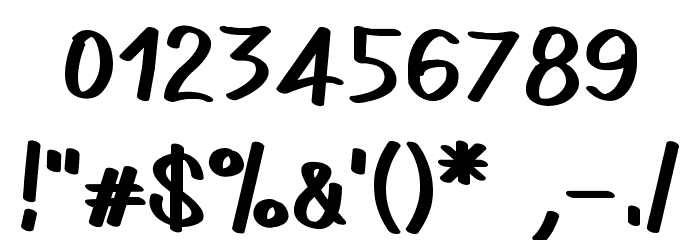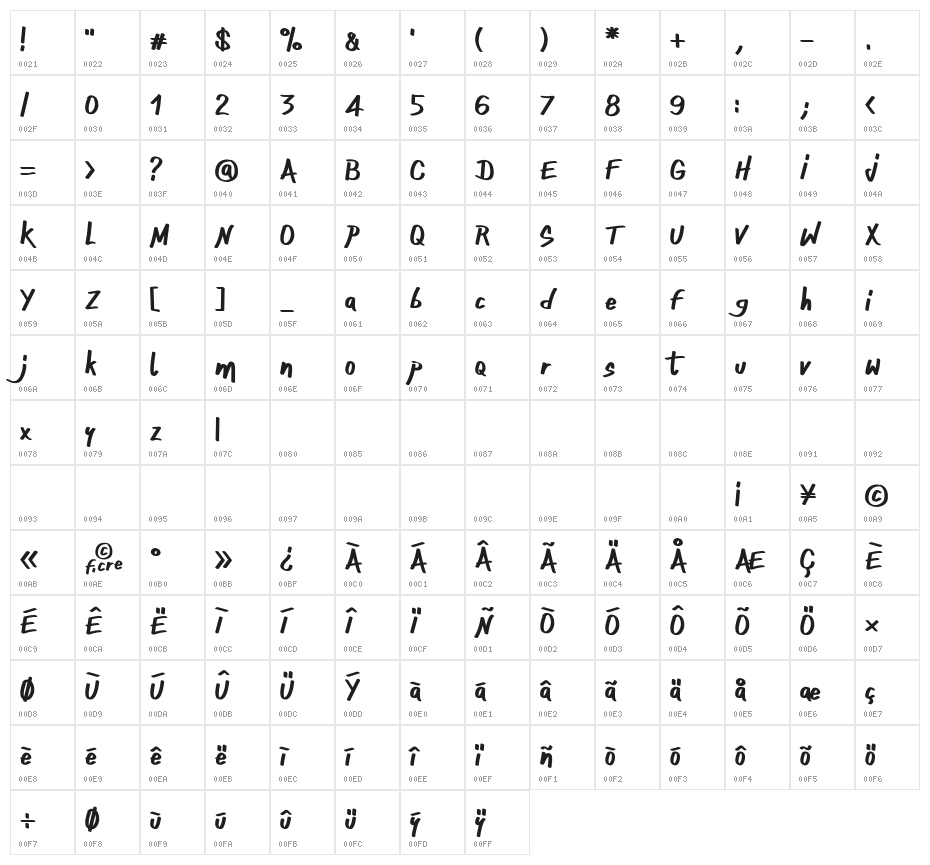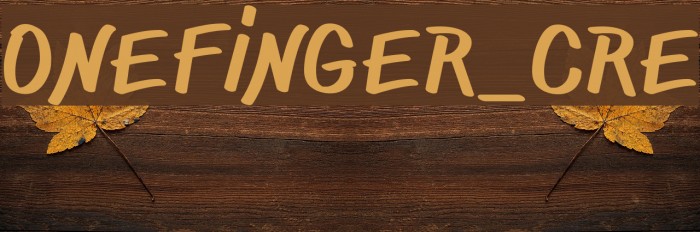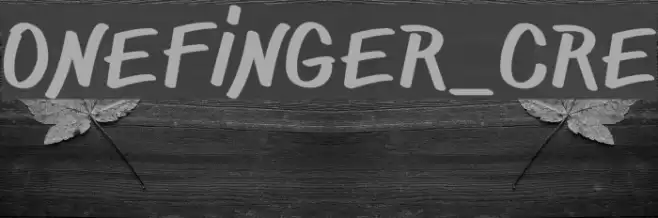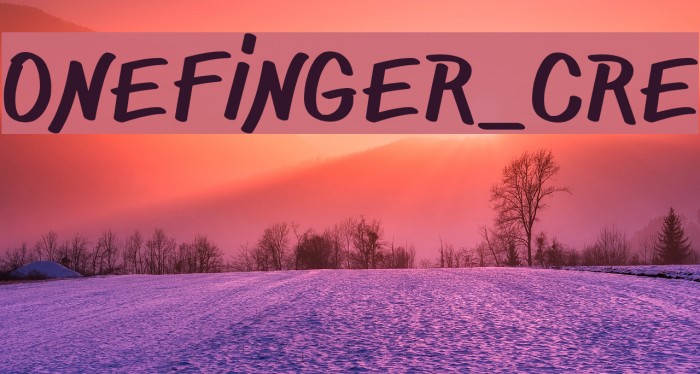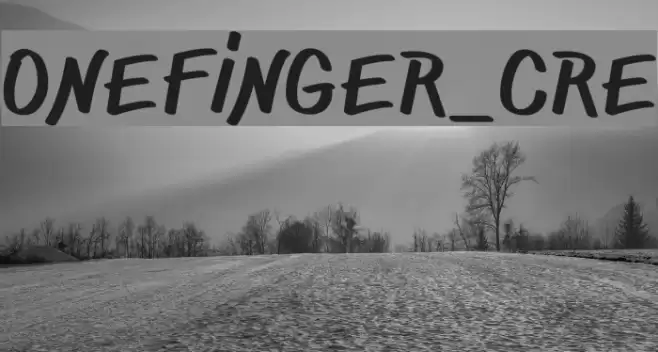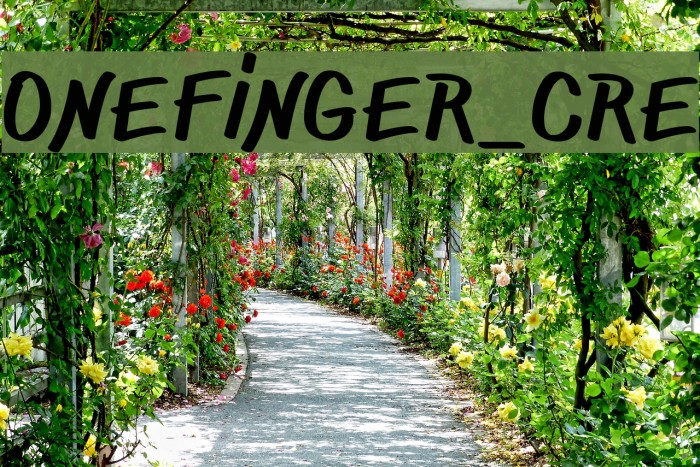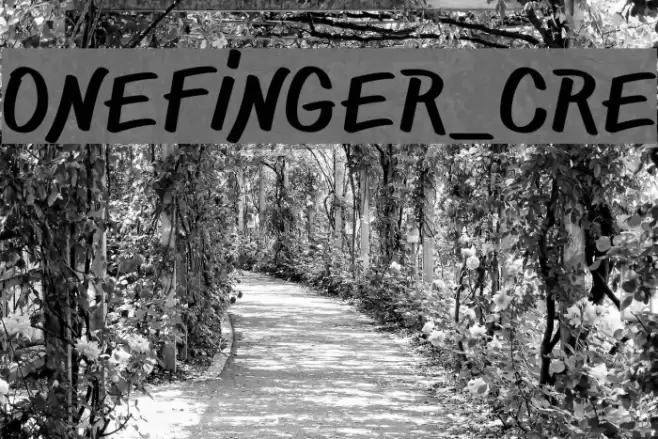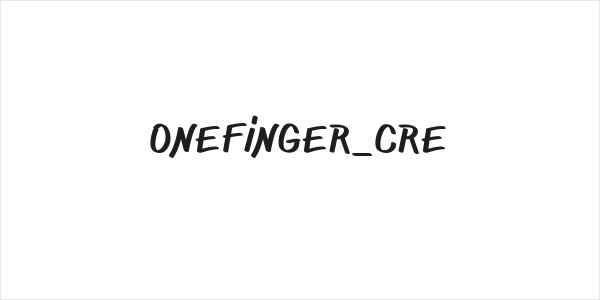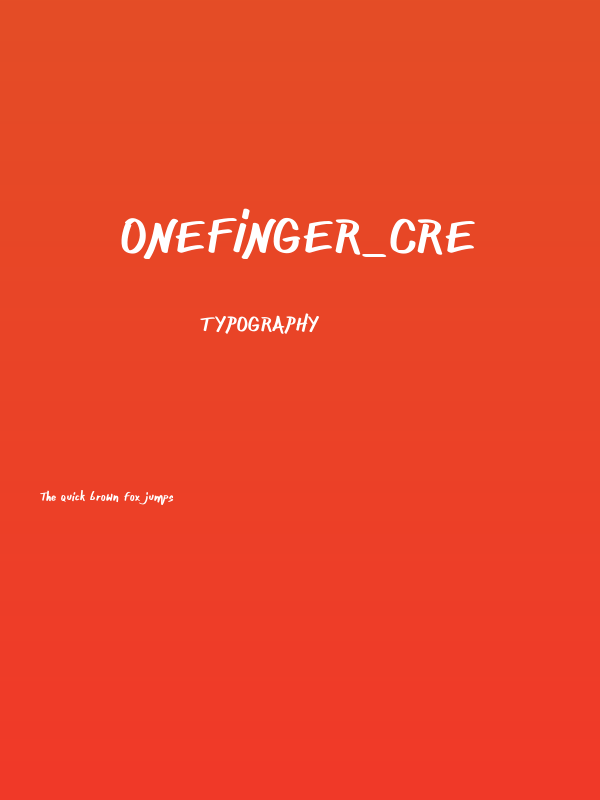
ONEFINGER_CRE Font
ONEFINGER_CRE Description
This font features a playful and energetic handwritten style, characterized by its bold and slightly irregular strokes. The uppercase letters are dynamic and slightly slanted, giving a sense of movement and spontaneity. The lowercase letters maintain a consistent style, with rounded edges and a casual feel. Numbers are bold and clear, ensuring readability. Special characters are creatively designed, adding to the font's overall whimsical appearance. This font is perfect for projects that require a personal touch or a fun, informal vibe.
| Overall Style | Playful, Casual |
| Proposed Projects | Ideal for greeting cards, children's books, playful branding, and social media graphics. |